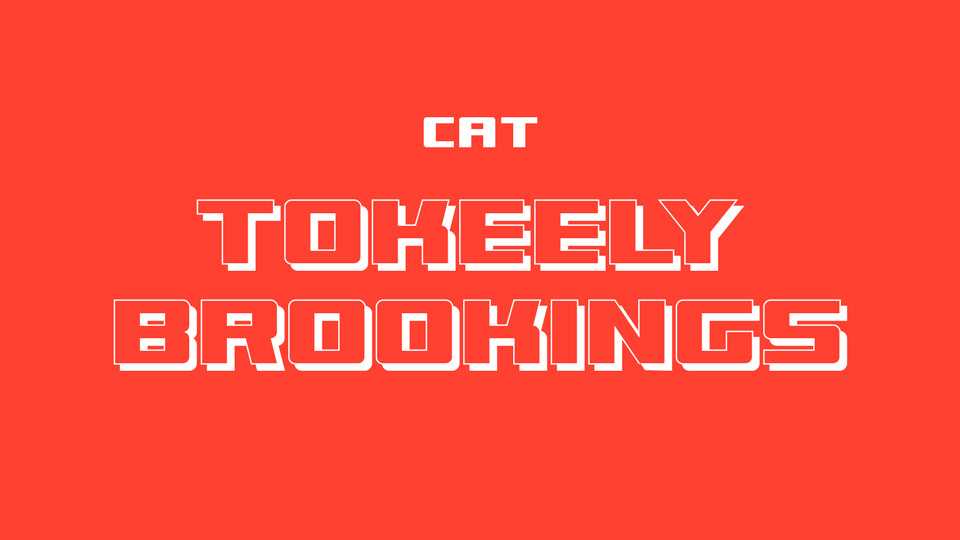
Download Tokeely Brookings font, a bold and wide display typeface in two styles – Regular and Shadow. Tokeely Brookings designed for eye-catching headlines, posters and other display use.